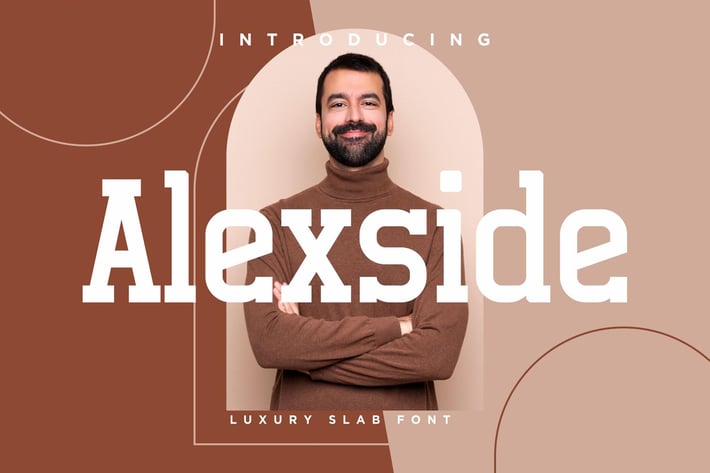
Alexside Slab Font
Alexside is a luxury slab serif font that blends bold geometry with refined elegance. Featuring strong serifs, clean lines, and a modern structure, it brings a sophisticated yet approachable look to any design.
Perfect for editorial layouts, branding, and product packaging, Alexside delivers both confidence and clarity in typography. Its well-balanced letterforms make it versatile for both display headlines and readable text.
Elegant Slab Serif Typeface
Uppercase & Lowercase Letters
Numbers and Punctuation
Regular and Italic Styles
Strong, stylish, and sophisticated — Alexside gives every word a touch of luxury and timeless strength.